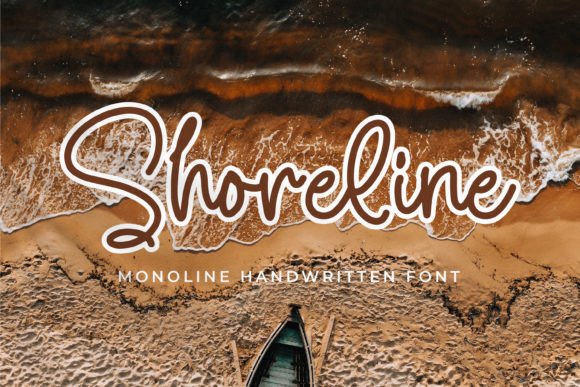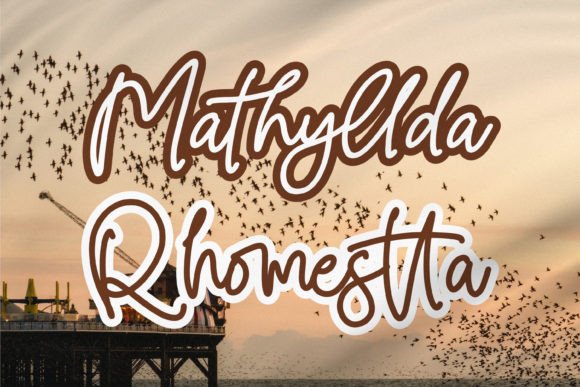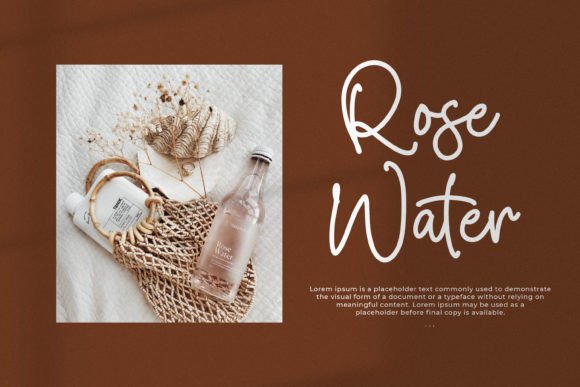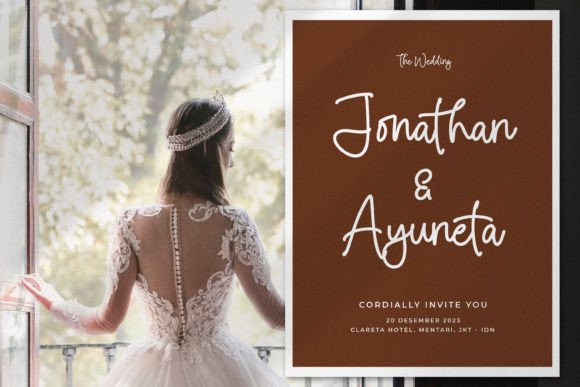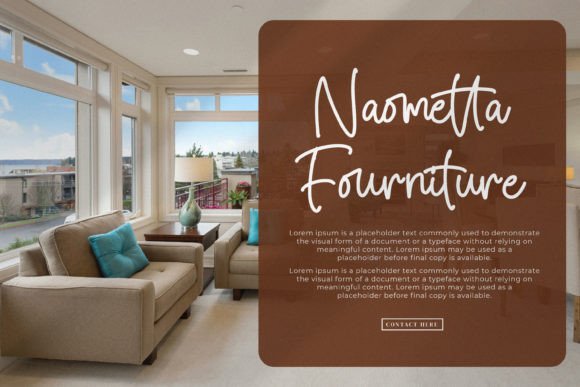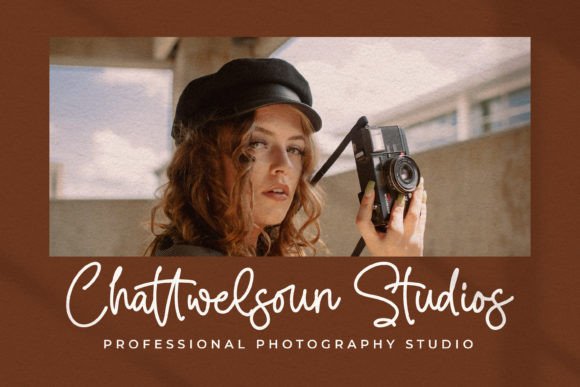
Introduction to Donatally Font
As a designer, you know that the perfect font can make all the difference in a project. It’s the moment when you stumble upon that one font that sparks creativity and makes your design come alive. For many of us, that moment happened when we discovered the Donatally Font – a friendly, hand-lettered typeface that exudes positivity and character.
With its charming style and high-quality design, the Donatally Font is a valuable resource for designers looking to add a personal touch to their projects. Whether you’re working on a logo, branding, or website, this font is perfect for creating a lasting impression. Plus, its transparent background makes it easy to use on a variety of backgrounds, giving you complete creative control.
Key Features of Donatally Font
- High-quality font design: The Donatally Font offers a unique and elegant design that is perfect for creative projects.
- Transparent background: The font’s transparent background allows for seamless integration with various design elements, making it ideal for creative projects.
- Supports various languages: The Donatally Font supports a wide range of languages, including English, Spanish, French, and many more.
- Perfect for print and digital projects: The font’s versatility makes it suitable for both print and digital projects, from business cards to website headers.
Honest Review: Donatally Font
I recently had the chance to work with the Donatally Font, and I have to say, it’s been a solid addition to my design resource library. This free download has been a game-changer for my creative projects, providing a high-quality, elegant aesthetic that elevates any design.
What works well: ✨ The Donatally Font is incredibly versatile, suitable for both digital and print projects. Its modern design and clean lines make it perfect for creating visually appealing headers and titles. Additionally, the transparent background feature allows for seamless integration with various backgrounds.
- Wide range of font sizes and styles
Limitations: ⚠️ While the Donatally Font is free to download, the limited character set may be a drawback for some users. Additionally, the font may not be suitable for projects requiring complex typography or extensive customization.
Overall, I’m impressed with the Donatally Font. Its high quality and versatility make it an excellent choice for designers looking to add a touch of elegance to their creative projects. With some minor limitations, I highly recommend this design resource to anyone looking for a reliable and stylish font.
To maximize the effectiveness of the Donatally Font, experiment with different font sizes, colors, and combinations with other design elements. This will help you achieve a unique and professional look for your creative project.
The Donatally Font is suitable for various design projects, including business cards, logos, posters, and social media graphics. Its high-quality design and transparent background make it an ideal choice for creative professionals and hobbyists alike.